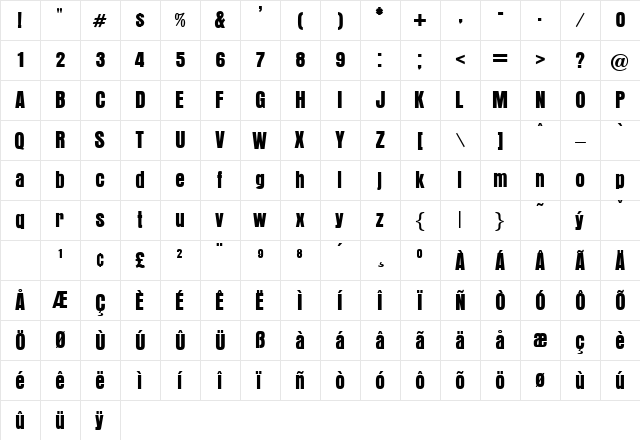
Auckland Regular
Design Context for Auckland Typeface
Auckland takes a measured approach to typography — its balanced proportions and neutral character make it a reliable workhorse for both digital and print work.